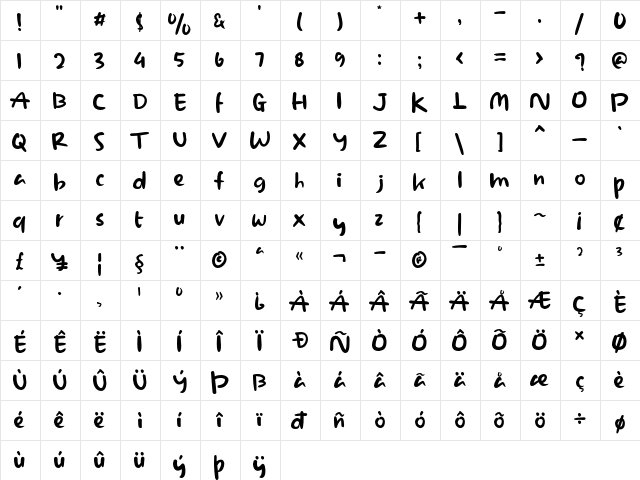
crufty craf Regular
| Designer | joko setiono |
Design Context for crufty craf Typeface
crufty craf is a composed and adaptable typeface that performs quietly and consistently across a wide range of design contexts.